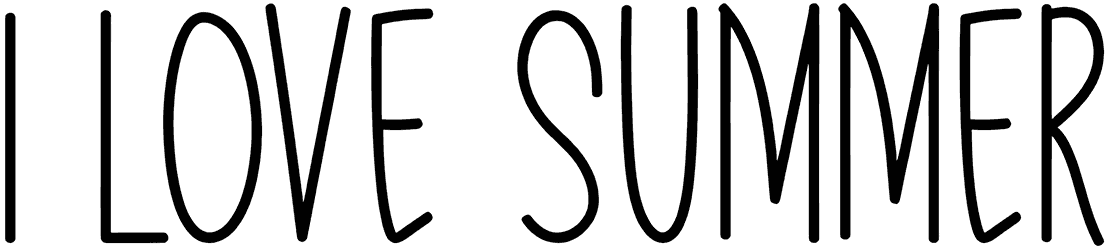
I Love Summer Font
It will not be hard to create a ravishing visual for your design if you use a minimal and realistic letterform like this handwritten font. Far from distinct visuals, this modern and modest script font will give a sweet face to your layouts. Lowercase letters and numbers are unavailable, but the I Love Summer font is going to make your project unforgettable.